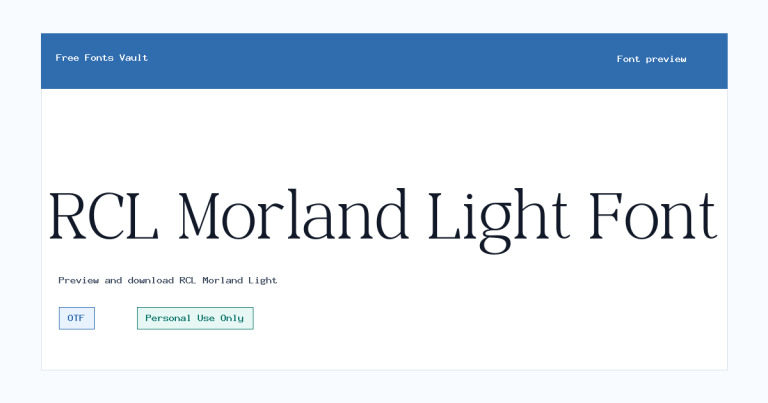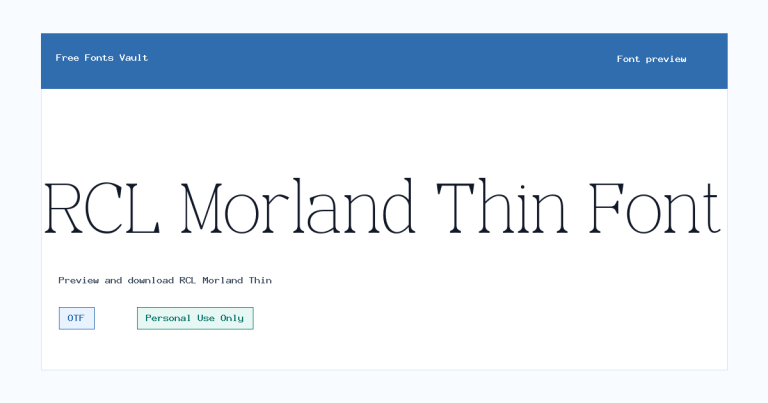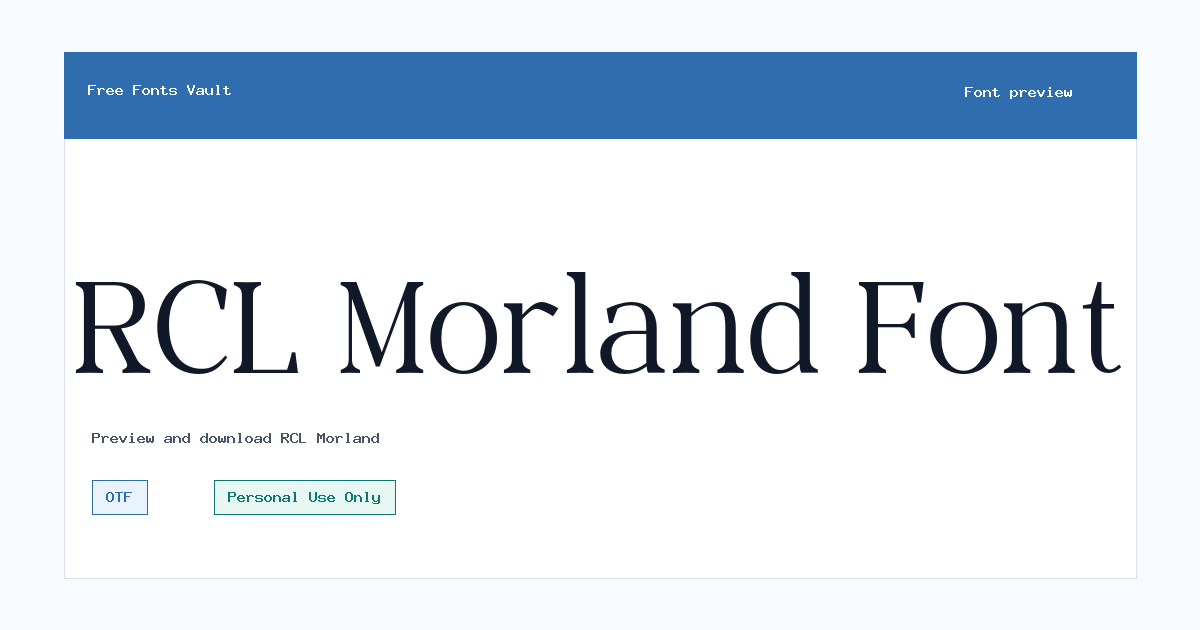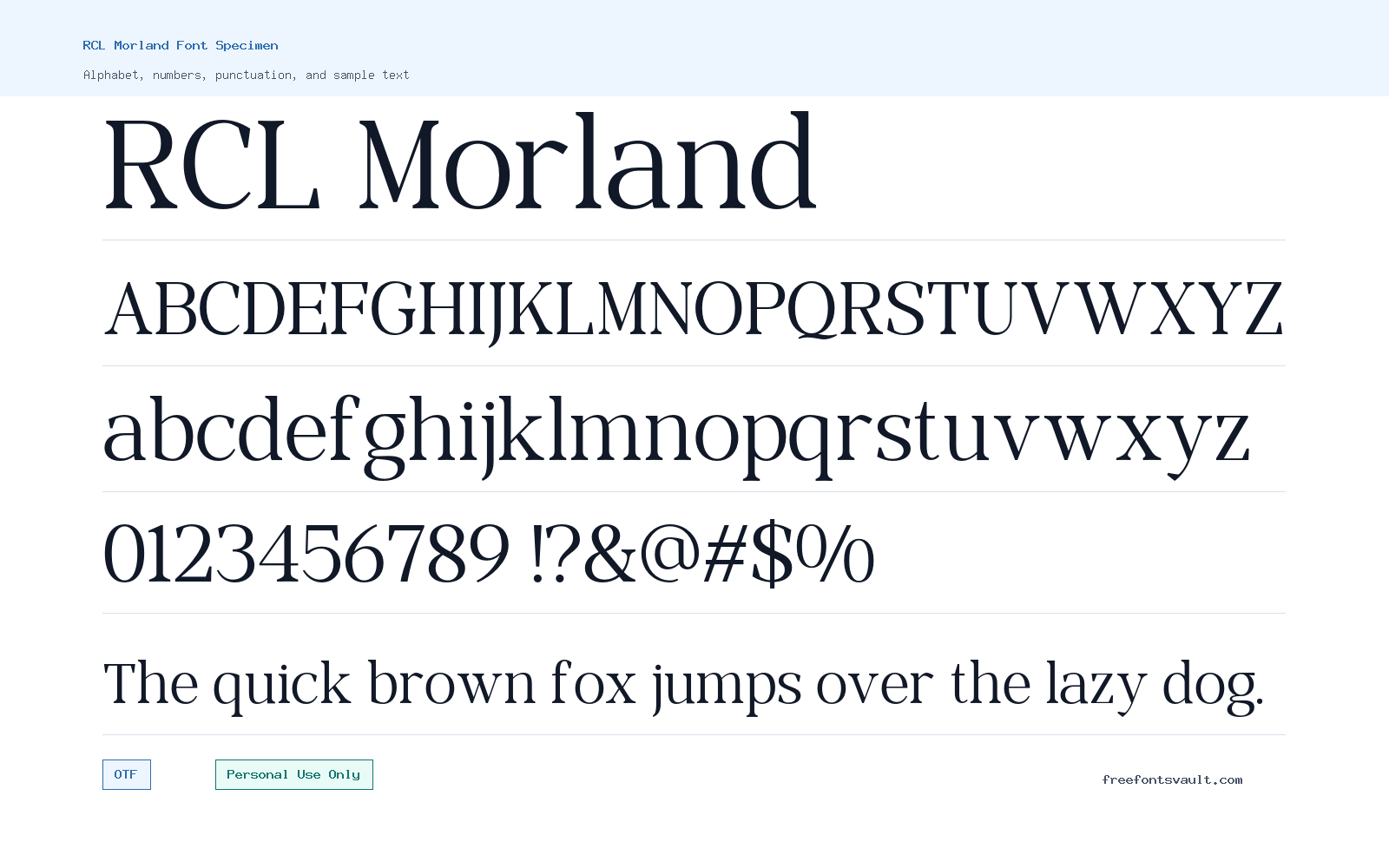
RCL Morland
RCL Morland font.
RCL Morland is a serif font family with Regular, Italic, Bold, and Bold Italic styles, giving you enough range to test both calm text settings and stronger display moments. It is licensed for personal use only, so it is best suited for practice projects, mockups, and non-commercial design drafts unless you confirm a separate commercial license.
About RCL Morland
RCL Morland works well when you want a serif face with a more polished, editorial feel than a plain system font. The Regular style is the safest place to start for names, short descriptions, invitations, moodboards, and layout tests. The Italic style can add contrast for short quotes, captions, or secondary lines, while the Bold style gives titles and headings more presence. Bold Italic is useful when you want emphasis without switching away from the same family.
Because the family has both upright and italic styles in regular and bold weights, it is easier to build a simple hierarchy without mixing too many fonts. Try Regular for body-sized preview text, Bold for section headings, and Italic for supporting phrases. For longer reading, test spacing and size carefully before committing, especially if your project uses small text or dense paragraphs. For logos, product packaging, posters, social graphics, and editorial mockups, preview your exact wording first so you can check letter spacing, punctuation, and how the capitals sit together.
- Personal-use serif family suitable for headings, short text, mockups, and design previews.
- Editorial-style headings, invitations, posters, brand mockups, and social media graphics for personal projects.
- Testing serif typography systems with matching upright, italic, regular, and bold styles.
Start by typing the exact words you plan to use in the preview box. Check the Regular style for general tone, switch to Bold for title strength, and compare the Italic styles for quotes or accent lines. If you use it in a layout, pair it with a simple sans serif so the serif details stay clear. Keep body text generous in size and line spacing until you are sure it reads comfortably.
What kind of projects fit RCL Morland?
It fits short serif-focused designs such as invitations, posters, editorial mockups, title graphics, quote cards, and branding drafts. Test it carefully for long paragraphs or very small text.
Which RCL Morland style should I start with?
Start with Regular to judge the basic look, then use Bold for stronger headings. Italic and Bold Italic are best for emphasis, quotes, captions, or decorative secondary lines.